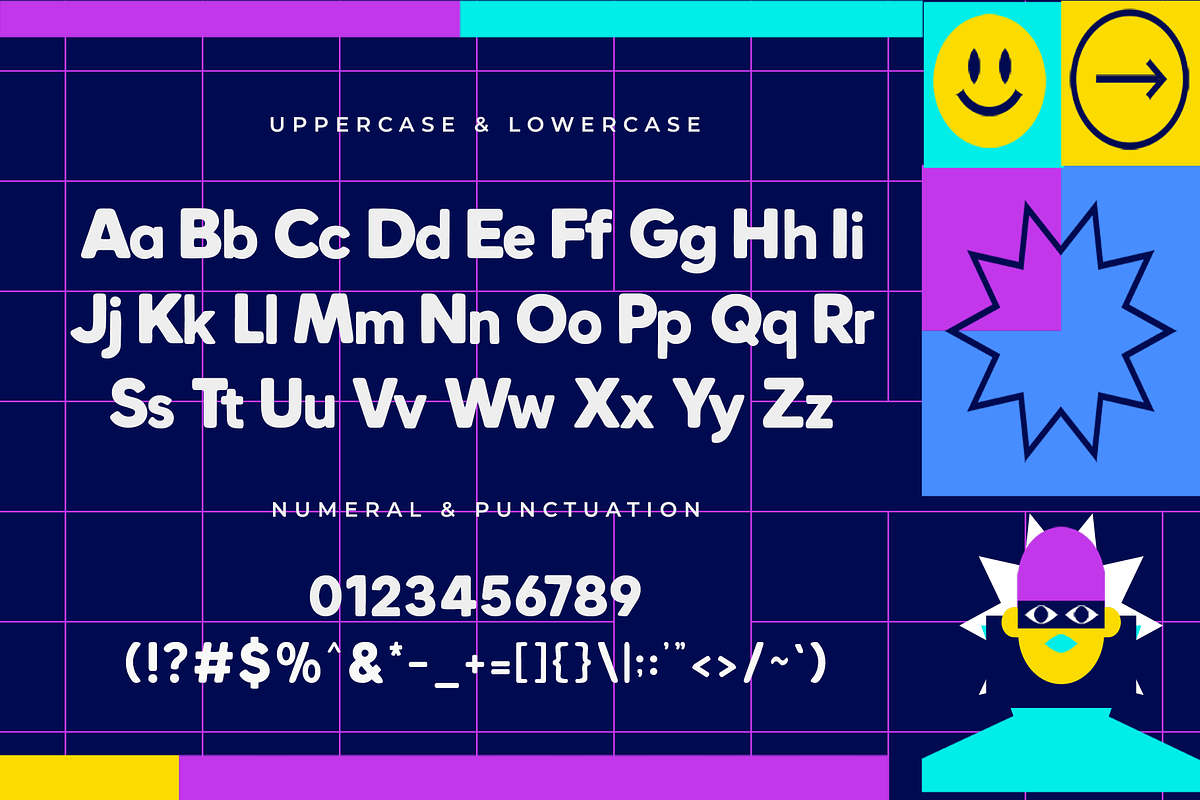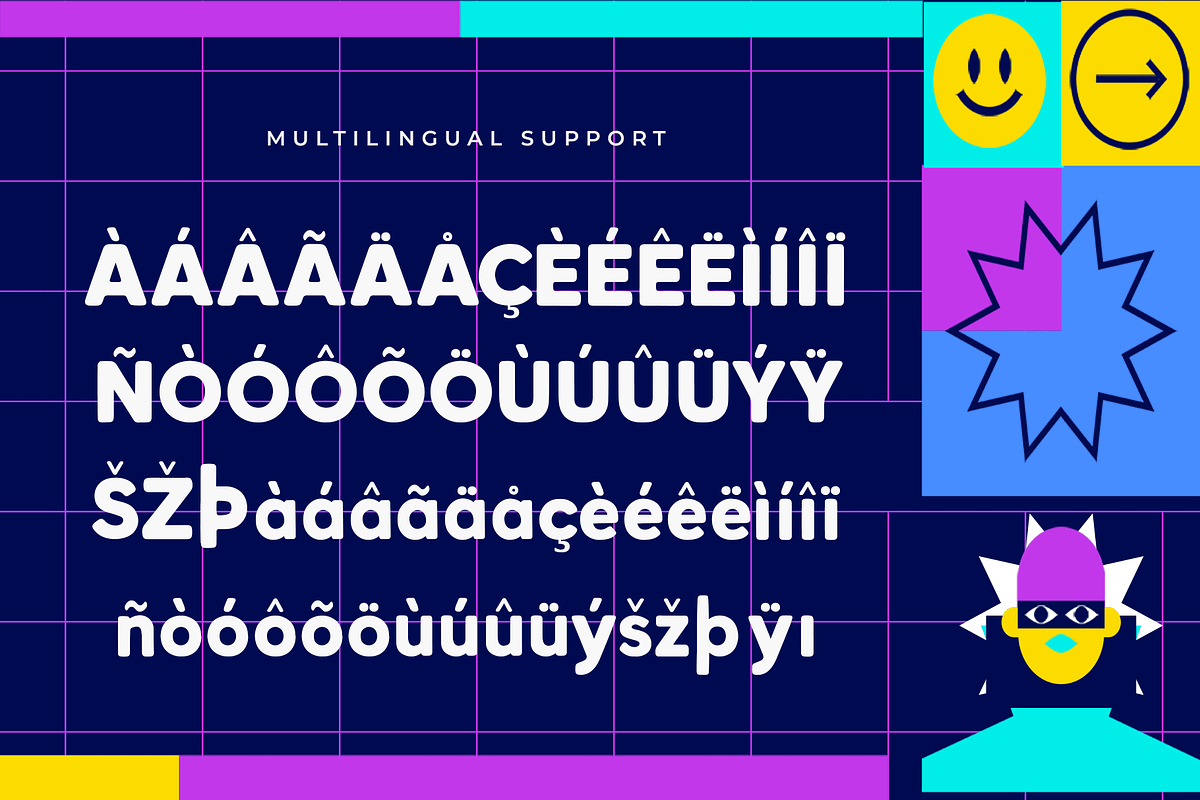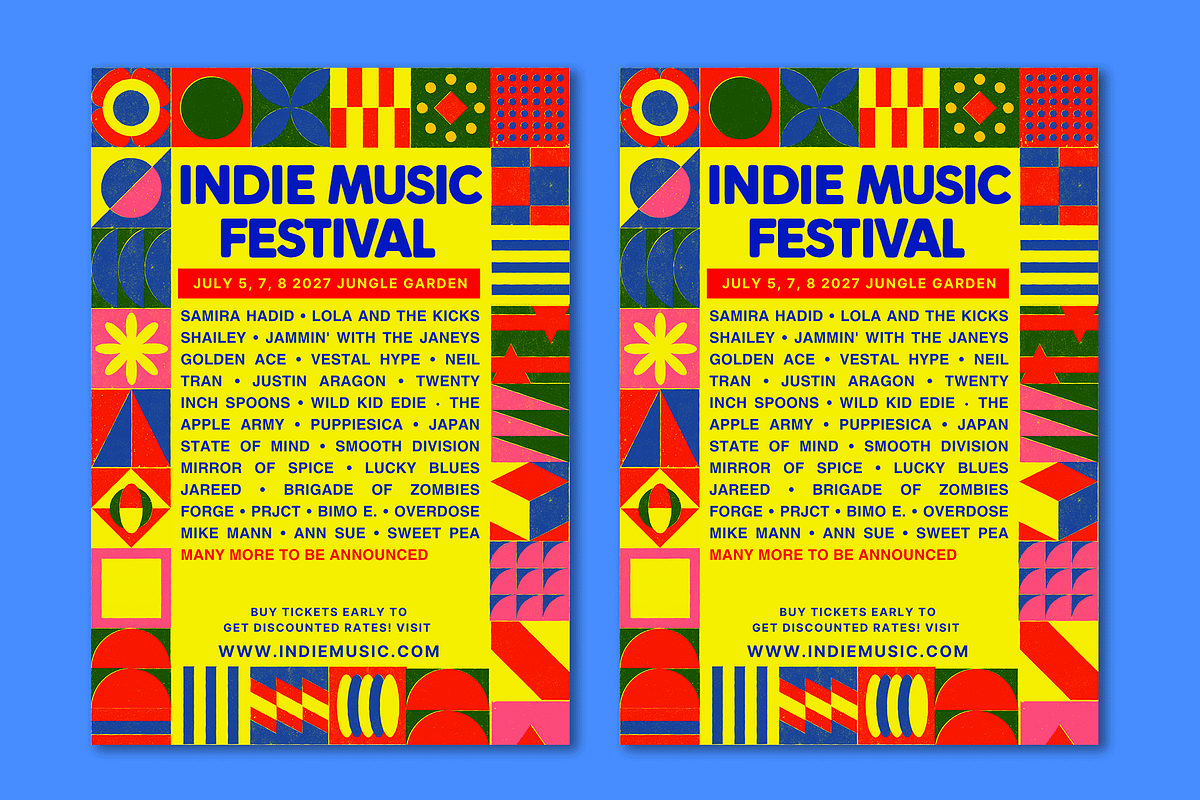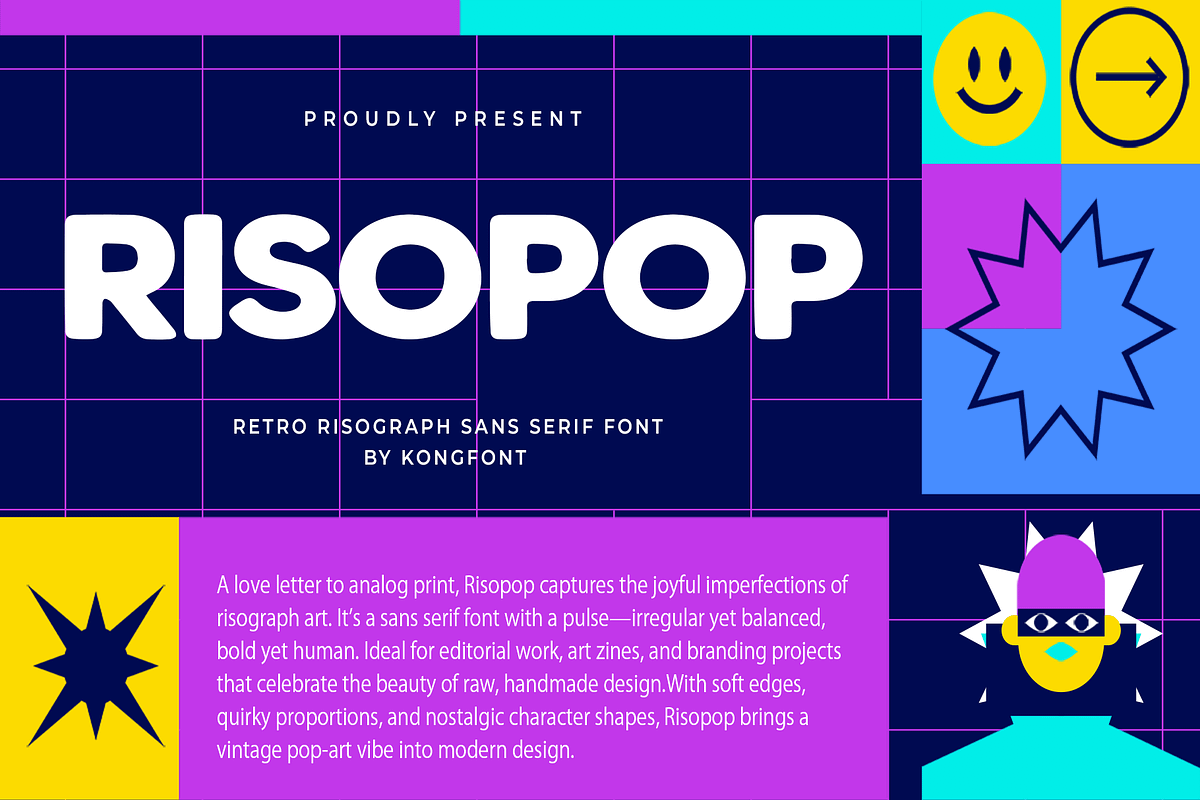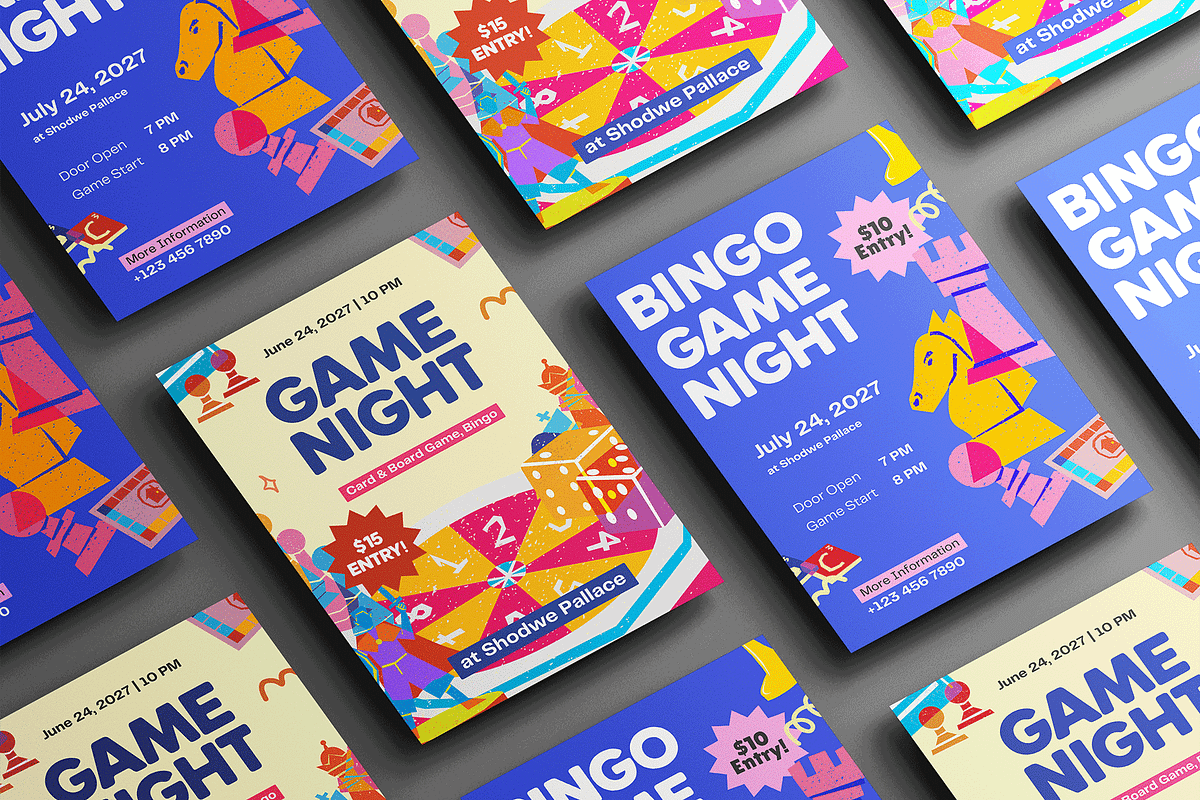
Risopop – Retro Risograph Sans Serif
Risopop – Retro Risograph Sans Serif Font
Risopop is a retro-inspired sans serif font that captures the quirky imperfections and bold character of risograph printing. With its blocky shapes, uneven edges, and vintage screen print vibe, Risopop brings nostalgic energy and analog charm to modern design projects.
Perfect for posters, zines, packaging, album art, editorial layouts, and branding that craves personality, Risopop combines the clean structure of sans serif forms with the playful unpredictability of riso textures. It’s designed to stand out while keeping that handcrafted, lo-fi appeal.
This font includes uppercase and lowercase letters, numbers, punctuation, and multilingual support—ready for bold statements and vibrant layouts.
Bring a splash of retro print culture into your next creative project with Risopop, where digital design meets analog soul.